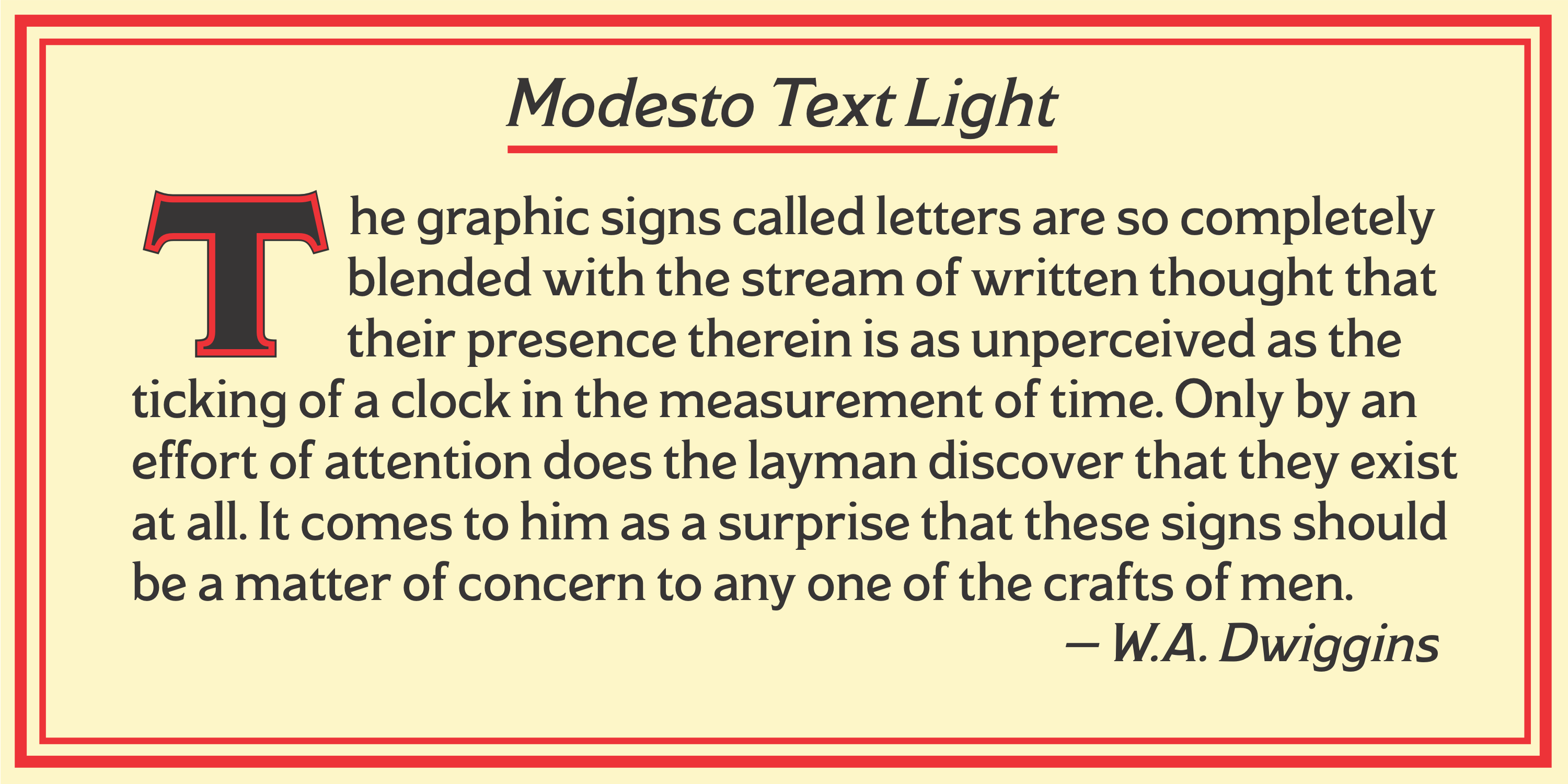
Modesto Text Font is perfect for classic American journalism, vintage newspaper layouts, editorial magazine designs, traditional book publishing, historical documentation, nostalgic advertising campaigns, heritage brand communications, and timeless literary publications.
What makes Modesto Text Font exciting is its authentic American heritage that beautifully captures the golden age of print journalism and traditional publishing through meticulously crafted typography that honors decades of editorial excellence. The skillfully designed letterforms showcase classic proportions with warm, readable character that evokes memories of morning newspapers, trusted editorial voices, and the reliable comfort of well-crafted written communication. This remarkable typeface embodies journalistic integrity, literary tradition, and American craftsmanship, making it the perfect choice for publications and brands that value authenticity, readability, and the enduring power of quality written content.
The Modesto Text Font family includes comprehensive weight range from Regular to Bold, with corresponding italic styles for complete editorial versatility. The extensive character set features traditional publishing symbols, classic numerals, editorial punctuation marks, and heritage ornaments that enhance the authentic American aesthetic across all print and digital publishing applications.
Publishers and editorial professionals seeking Modesto Text Font Free Download will discover unlimited potential for creating trustworthy, highly readable communications. This exceptional typeface transforms standard editorial text into compelling reading experiences that immediately communicate credibility, editorial quality, and journalistic professionalism. Whether you're designing newspaper layouts, creating magazine editorial spreads, developing book publishing systems, or crafting heritage brand communications, this font delivers outstanding results that build reader trust and establish editorial authority in an era where authentic, reliable information sources are more valuable than ever.
The expertly optimized letter spacing and traditional proportions make Modesto Text Font remarkably effective across both extensive body text applications and prominent headline uses. Its editorial character ensures maximum readability for long-form content while maintaining distinctive American publishing heritage. From daily newspapers to literary quarterlies, this font consistently delivers the editorial excellence that defines trusted American journalism.